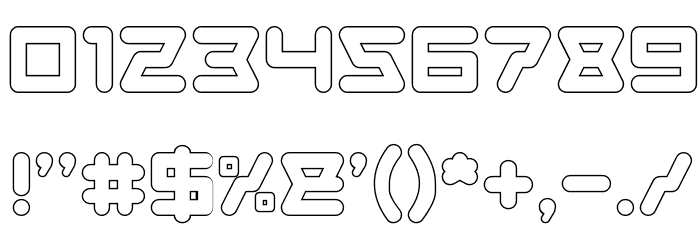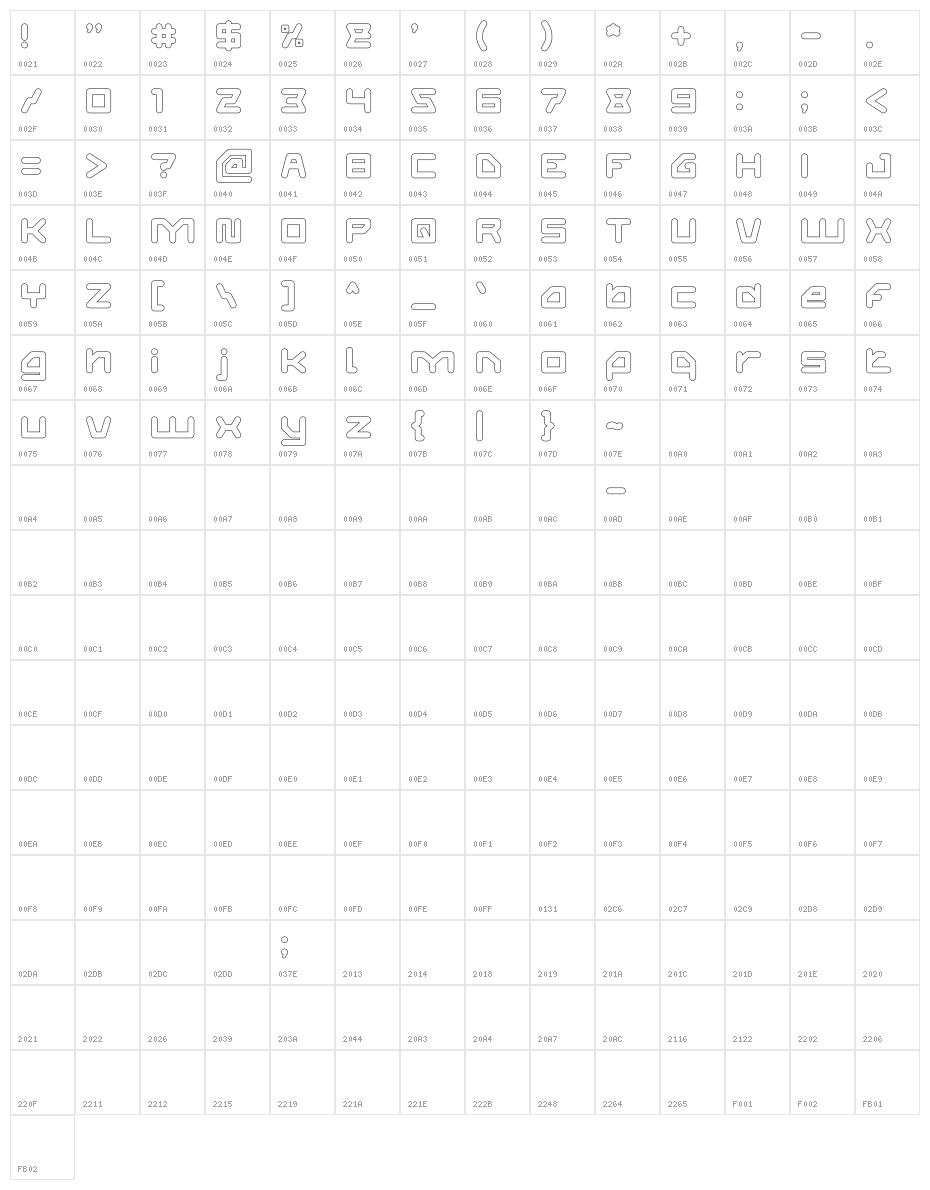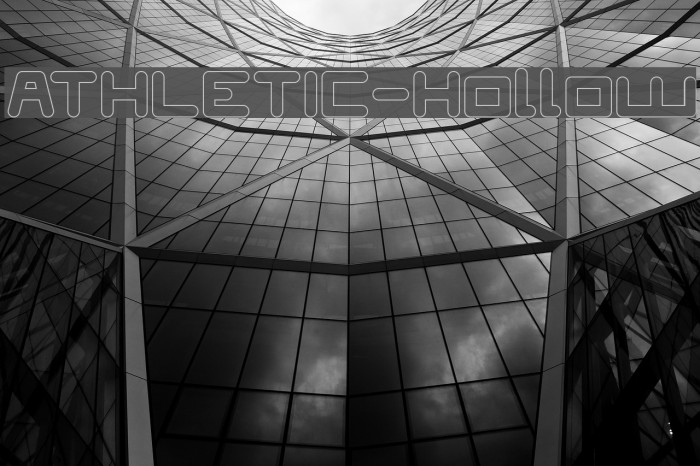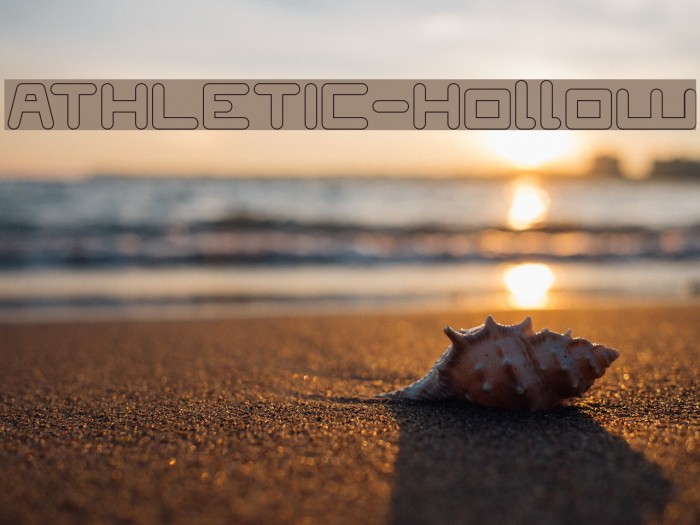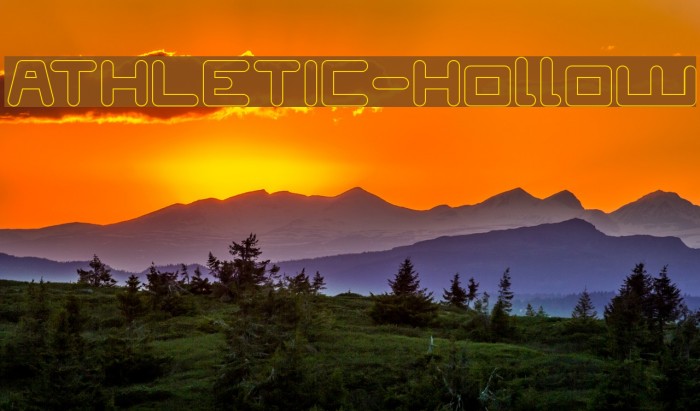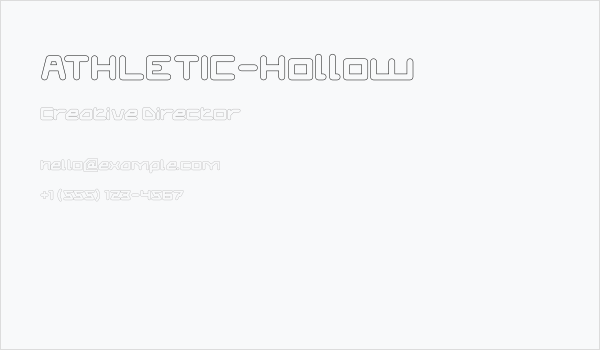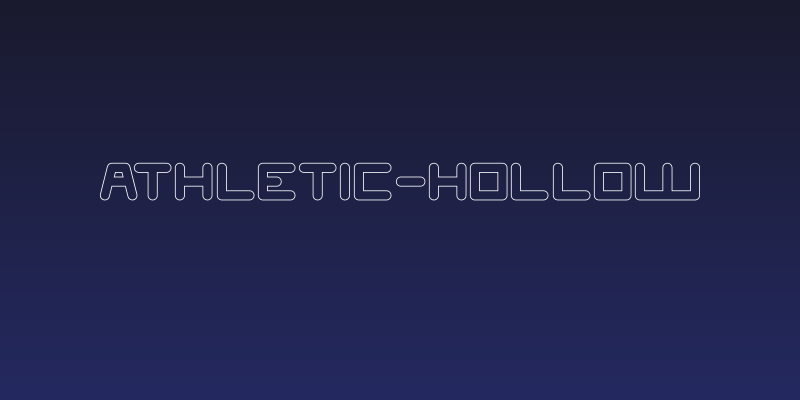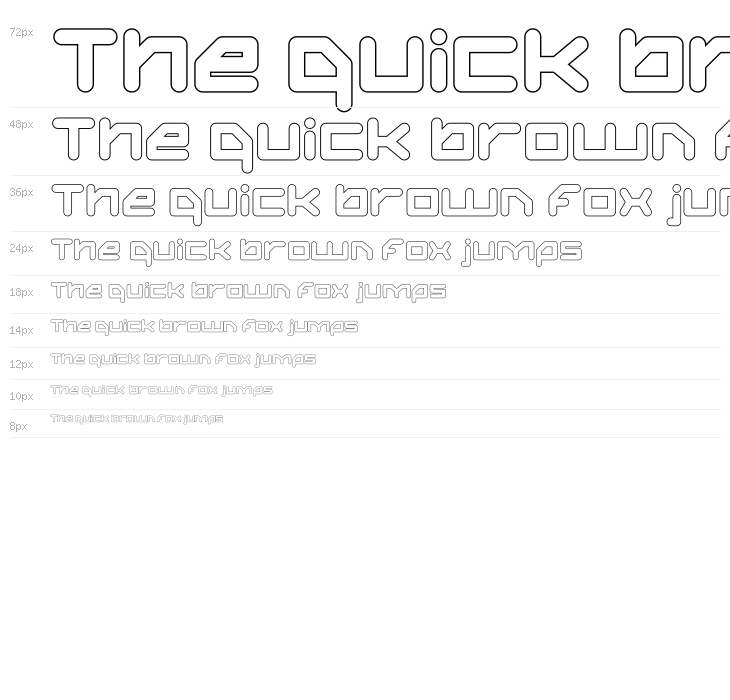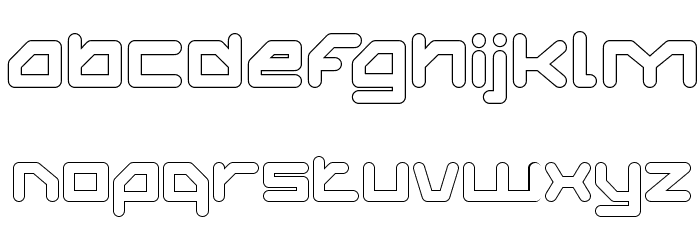
ATHLETIC-Hollow Font
ATHLETIC-Hollow Description
This font features a hollow, geometric design with a futuristic and sporty aesthetic. The characters are outlined, creating a bold yet airy appearance. The uppercase and lowercase letters maintain a consistent style, with rounded edges and a uniform thickness throughout. Numbers and special characters follow the same design principles, ensuring a cohesive look across all elements. The font's structure is clean and modern, making it suitable for projects that require a dynamic and energetic feel.
| Proposed Projects | Ideal for sports branding, futuristic designs, posters, and digital media. |